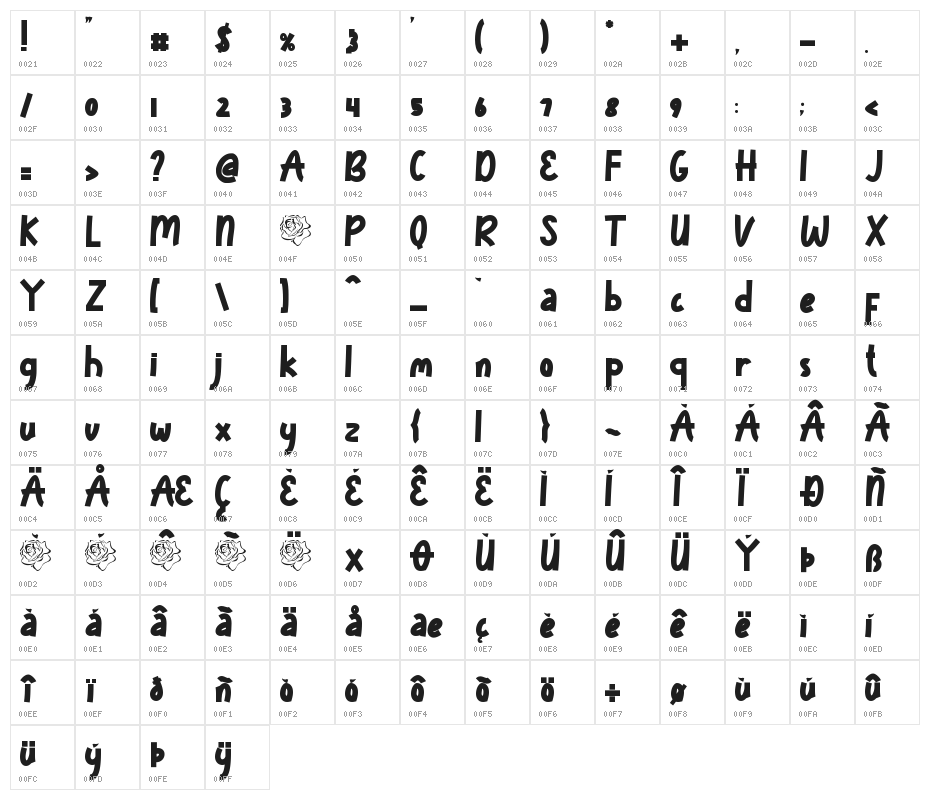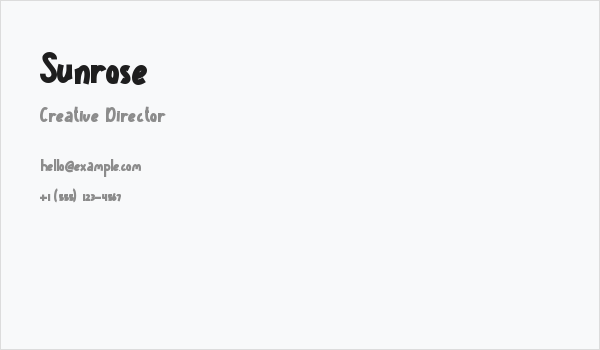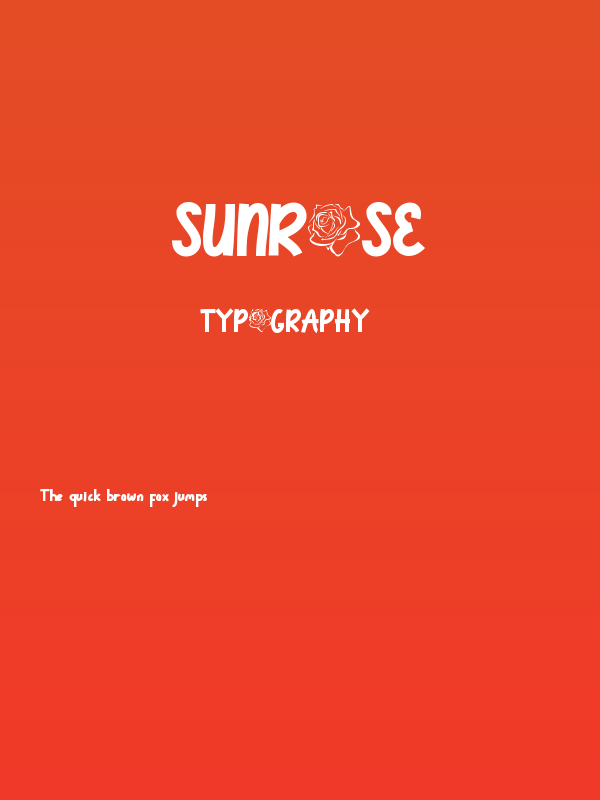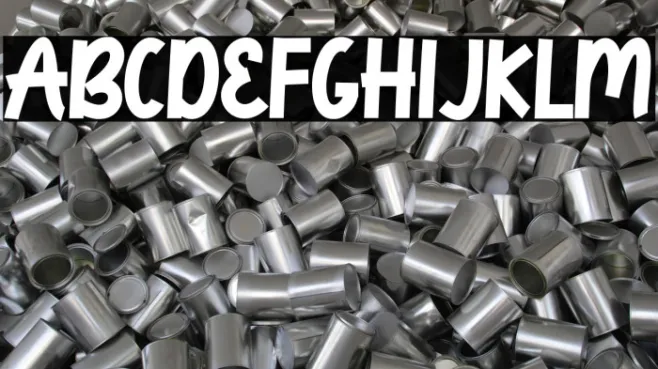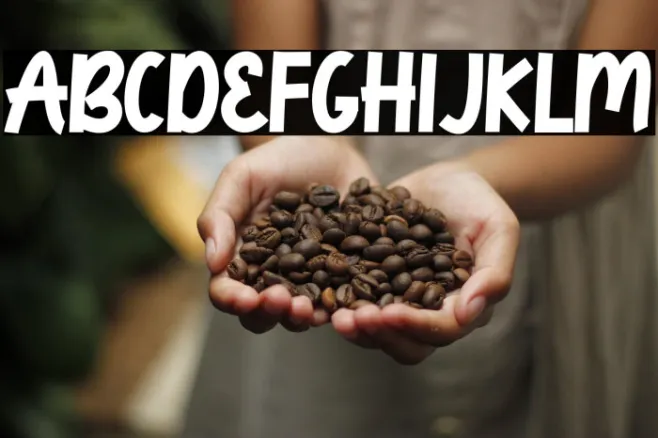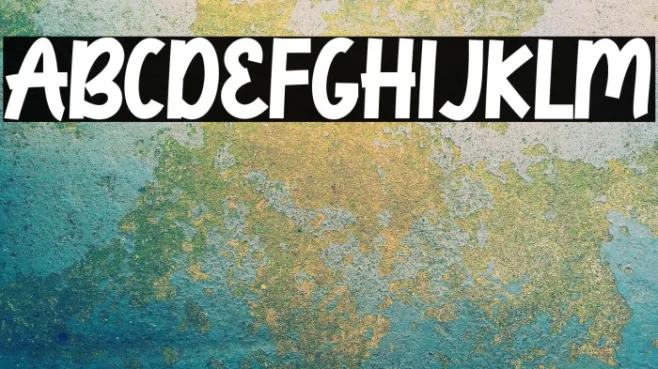
Sunrose Font
Sunrose Description
This font features a playful and bold style with a hand-drawn appearance. The characters are slightly irregular, giving it a whimsical and informal feel. The uppercase letters are robust and dynamic, while the lowercase letters maintain a consistent flow with rounded edges. The numbers are bold and easily readable, complementing the overall style. Special characters are creatively designed, adding to the font's unique personality. The font's design is suitable for projects that require a fun and approachable aesthetic.
| Proposed Projects | Ideal for children's books, playful branding, posters, and creative invitations. |